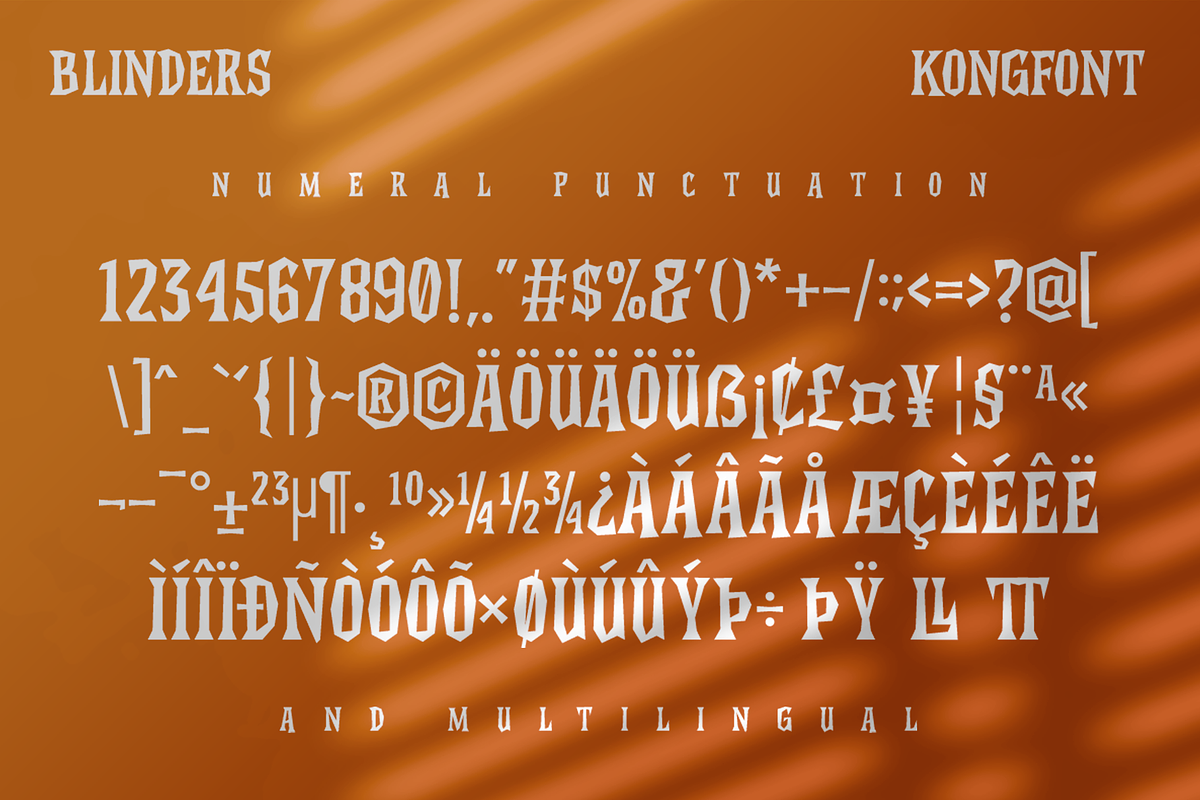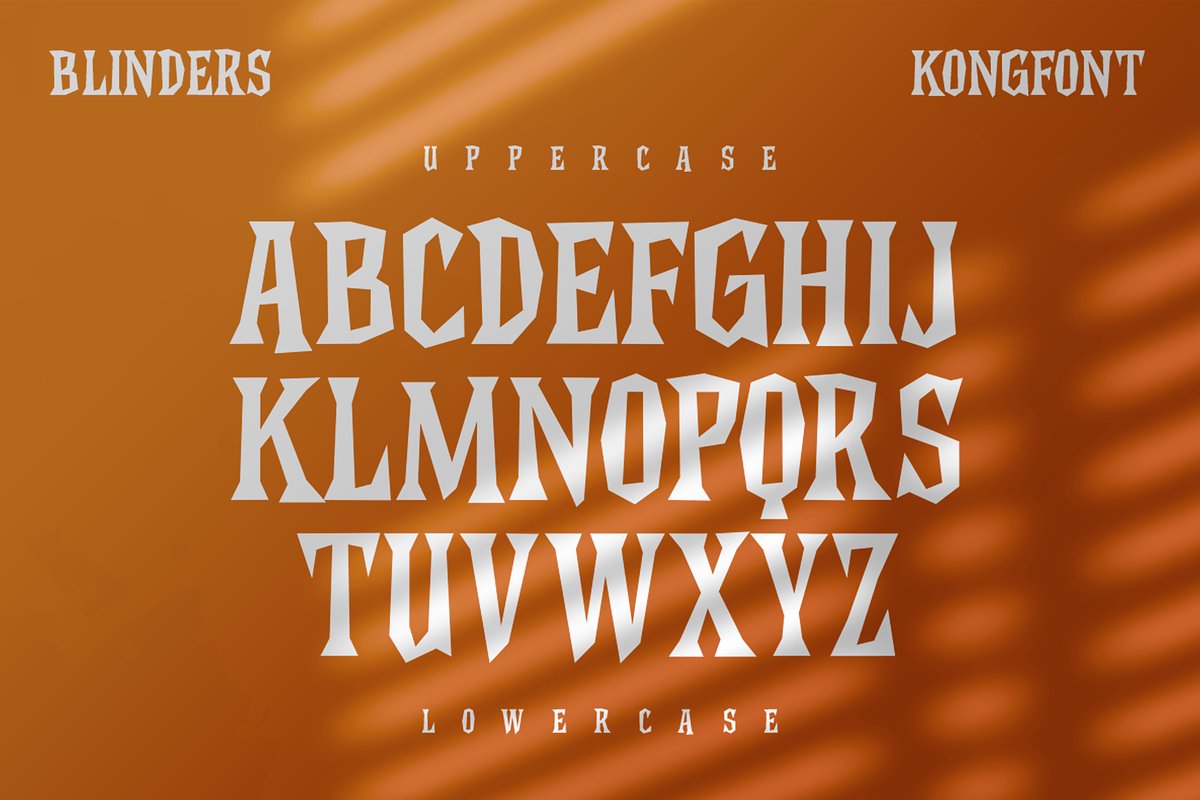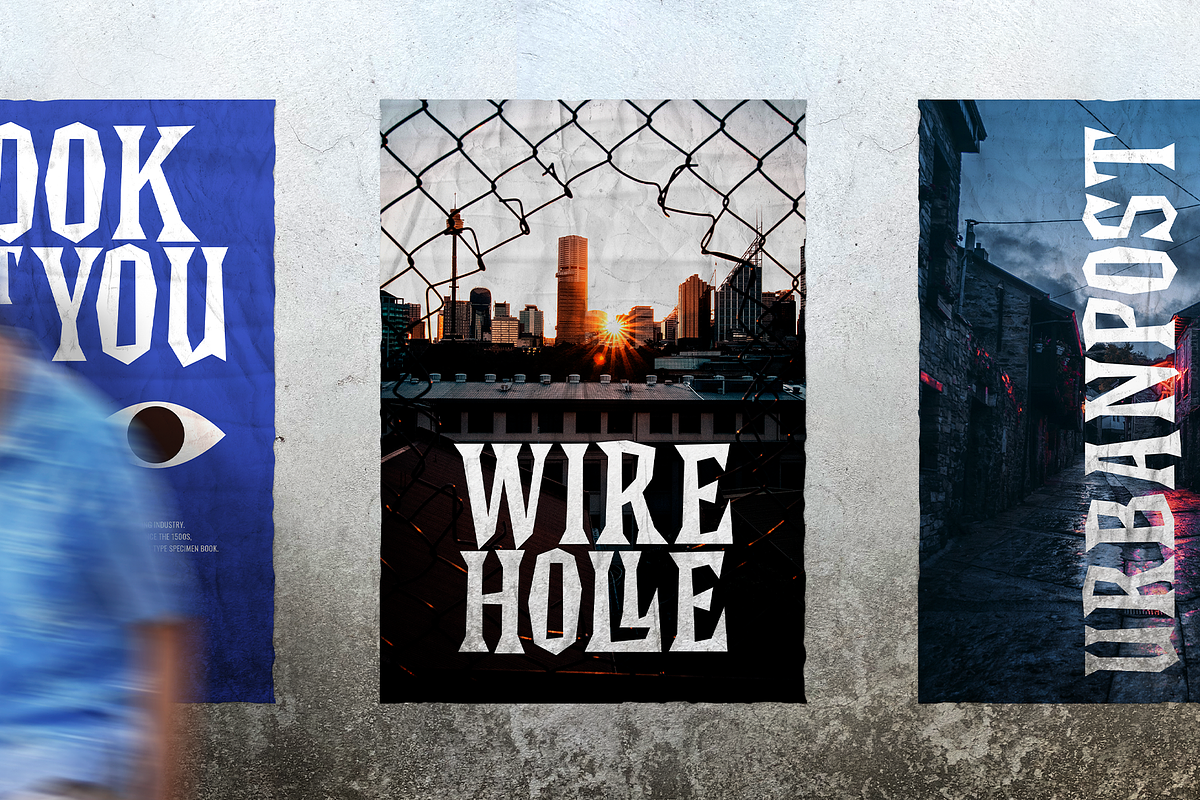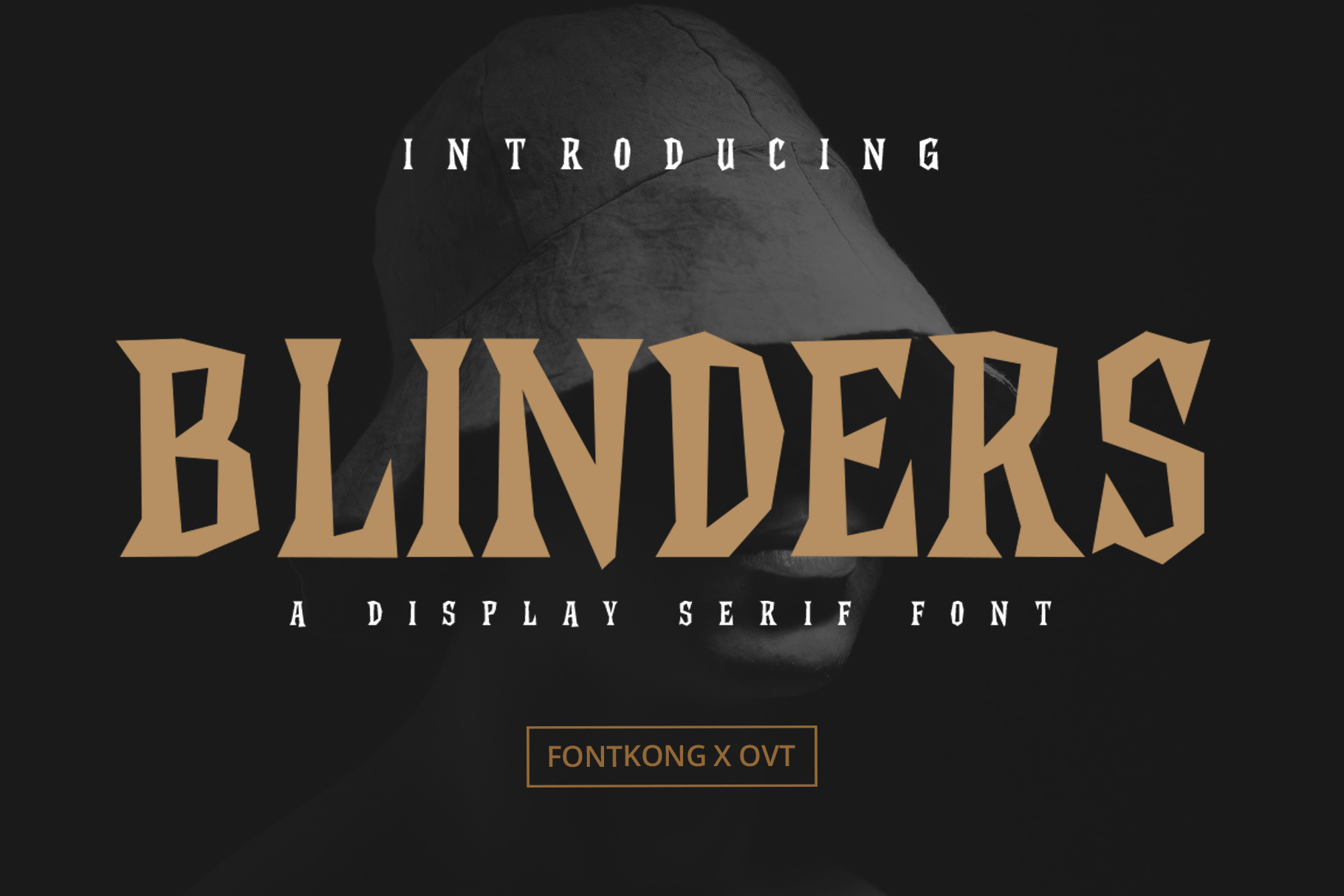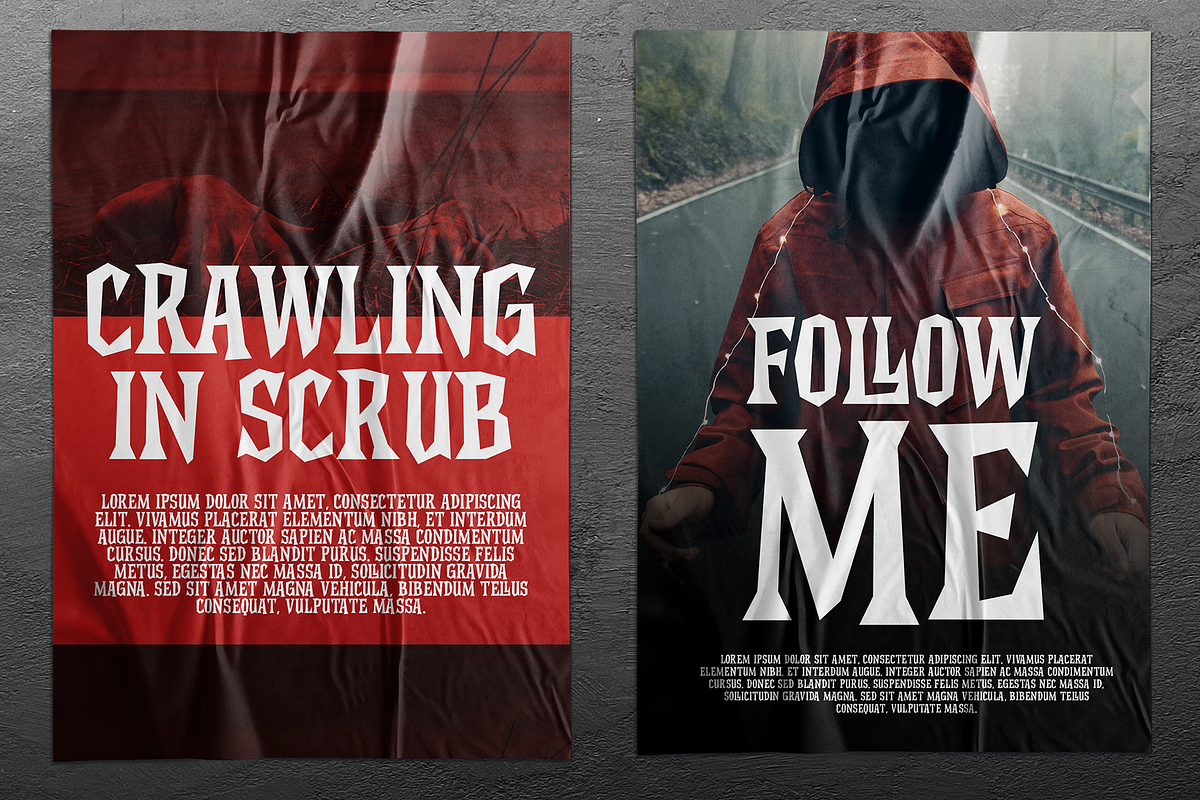
Blinders - Display Serif Font
Introducing "Blinders," a display serif font that merges classic elegance with modern impact. Perfect for graphic designers, branding experts, and creatives looking to elevate their projects with a sophisticated touch, Blinders offers a refined and striking serif style that commands attention.
Ideal for headlines, logos, branding materials, editorial layouts, and packaging, Blinders' sharp serifs and balanced proportions provide a timeless and authoritative aesthetic. Each character is meticulously crafted to ensure readability and visual appeal, making your designs both elegant and impactful.
The "Blinders" font includes a complete set of uppercase and lowercase letters, numbers, punctuation marks, and special characters. This versatility ensures seamless integration into a variety of design projects, from luxurious branding to stylish editorial content.
Elevate your designs with Blinders, the display serif font that combines classic sophistication with modern impact.